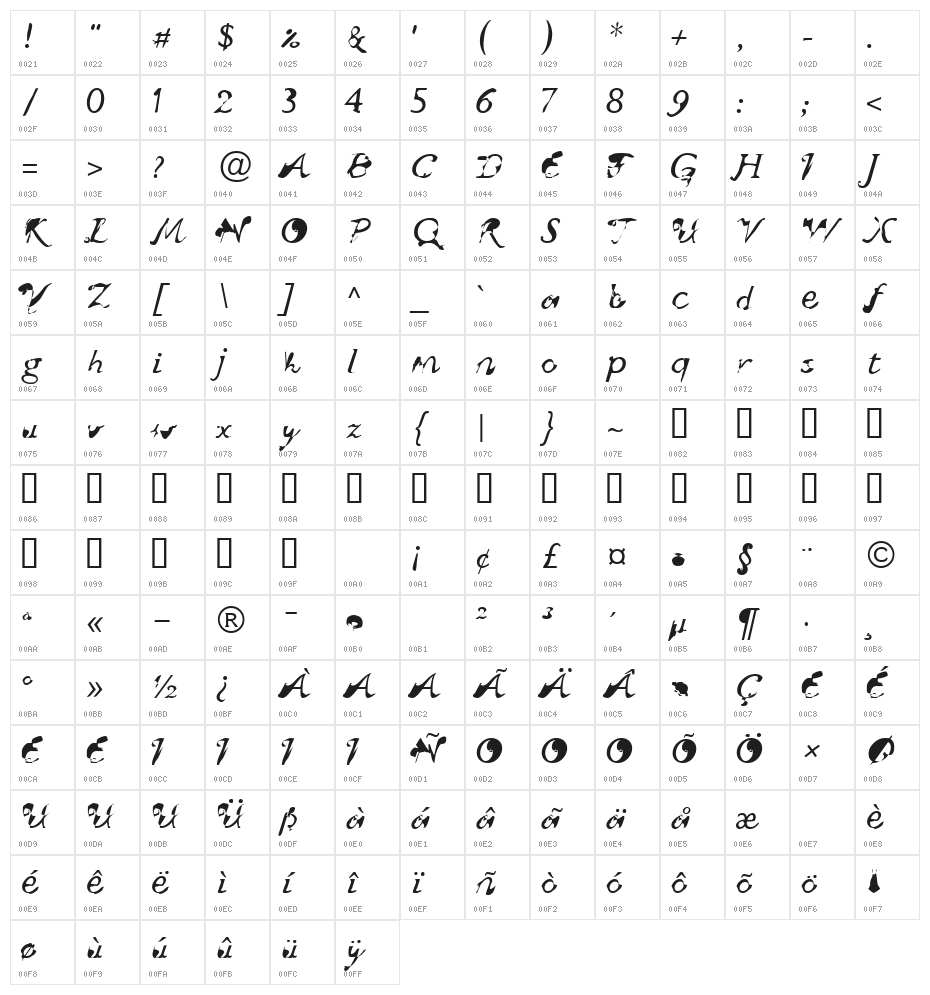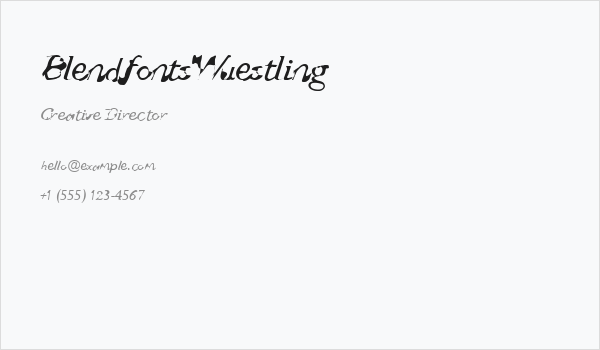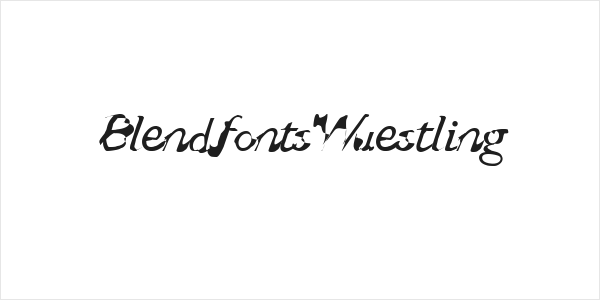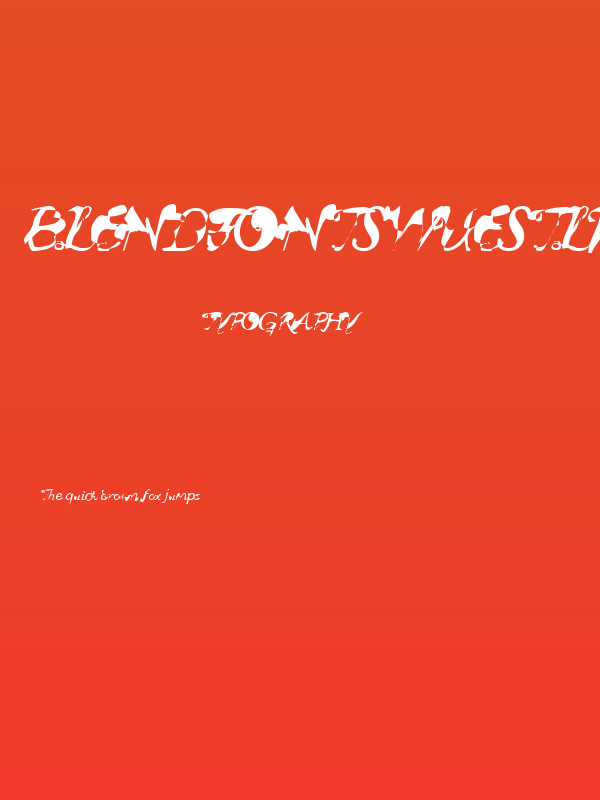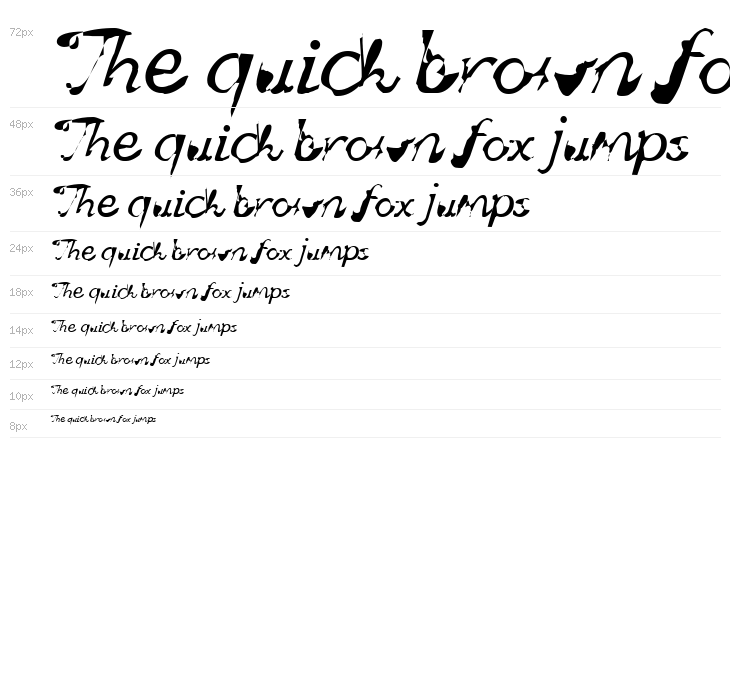
BlendfontsWuestling Font
BlendfontsWuestling Description
This font exhibits a dynamic and artistic style, characterized by its fluid and cursive letterforms. The strokes are bold and expressive, with a high contrast between thick and thin lines, giving it a dramatic flair. The characters are slightly slanted, adding a sense of motion and elegance. The uppercase letters are particularly striking, with unique flourishes and swashes that enhance their decorative appeal. The lowercase letters maintain a consistent style, complementing the uppercase with their smooth curves and flowing lines. The numerals and special characters are designed to match the overall aesthetic, ensuring a cohesive look across all glyphs.
| Proposed Projects | Ideal for creative projects such as branding, logos, posters, and invitations where a bold and artistic touch is desired. |